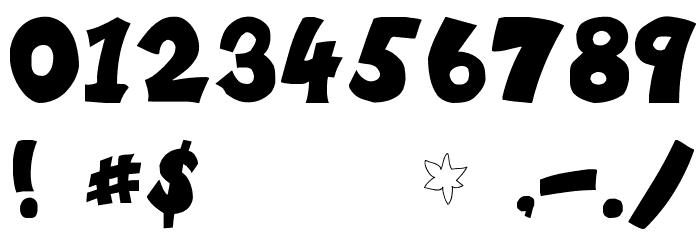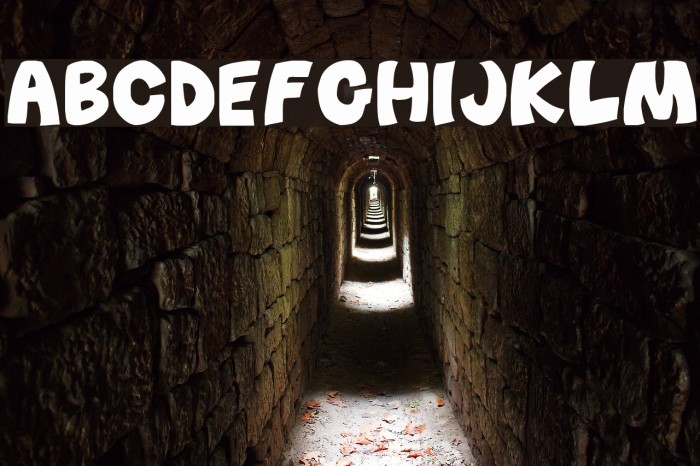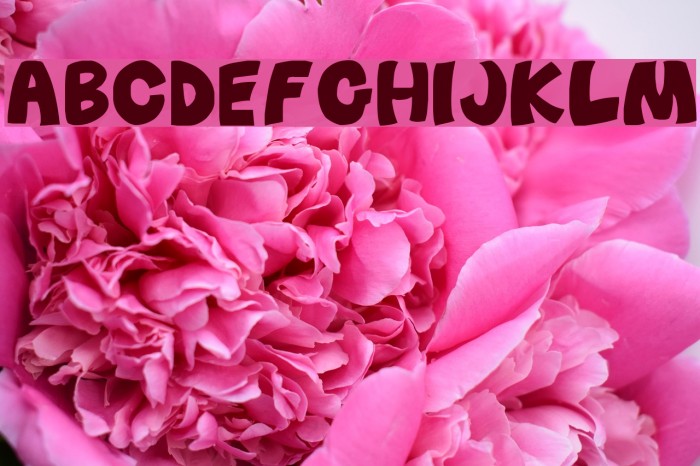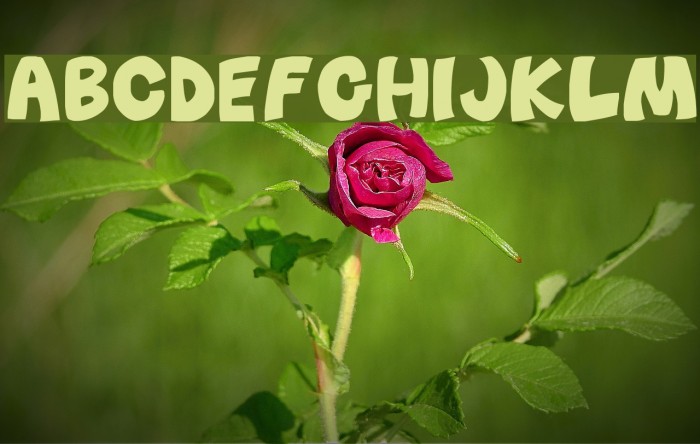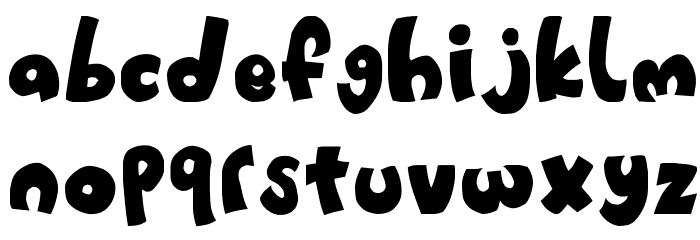
Before_Attack Font
Before_Attack Description
This playful and bold font features a whimsical and cartoonish style, characterized by its exaggerated curves and uneven lines. The letters have a hand-drawn appearance, with a slightly irregular baseline that adds to its charm. The uppercase and lowercase letters maintain a consistent style, with rounded edges and a sense of movement. The numbers and special characters follow the same playful design, making the font suitable for creative and informal applications. Its unique personality makes it stand out, perfect for projects that require a fun and engaging visual element.
| Overall Style | Playful, Cartoonish |
| Proposed Projects | Ideal for children's books, comic strips, playful branding, and party invitations. |